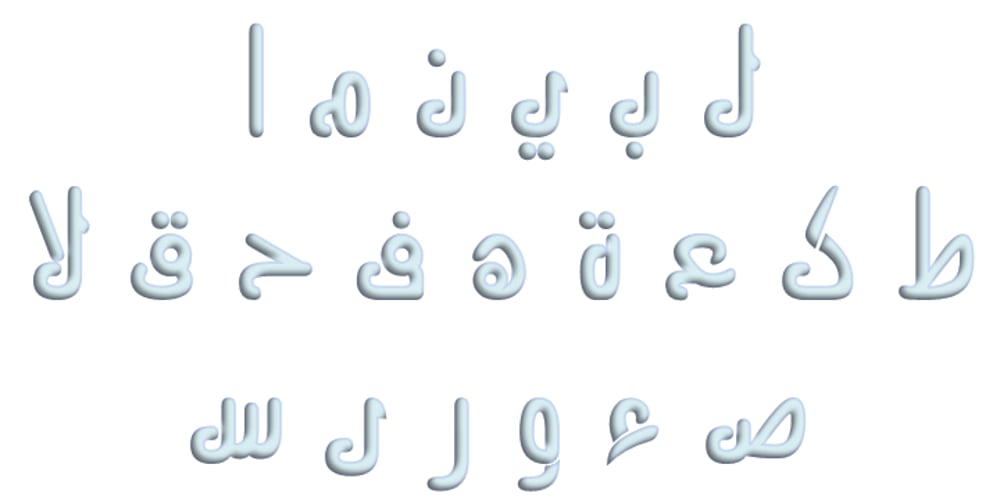
Yasmine Mutamathil Font Family was designed by Saad D. Abulhab and published by Arabetics. Yasmine Mutamathil contains 4 styles and family package options. The Yasmine Mutamathil type family follows the guidelines of the Mutamathil type style. It has only one glyph for every basic Arabic Unicode character or letter. The Yasmine Mutamathil family includes all required Lam-Alif ligatures and selected marks positioning so it does use limited glyph substitutions or forming. Yasmine Mutamathil employs four fixed x-height values, two above and two below the x-axis. Values are high to give a slight vertical overall look. Its design uses full curves with equally distributed weight. Text strings composed using types of this family are non-cursive with stand- alone isolated glyphs. The Yasmine Mutamathil family includes both Arabic and Arabic-Indic numerals, all required diacritic marks, Allah ligature, in addition to all standard English keyboard punctuations and major currency symbols. It is available in regular, italic, bold, and bold italic styles.